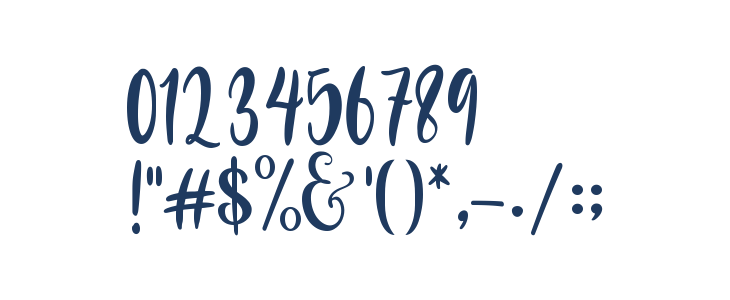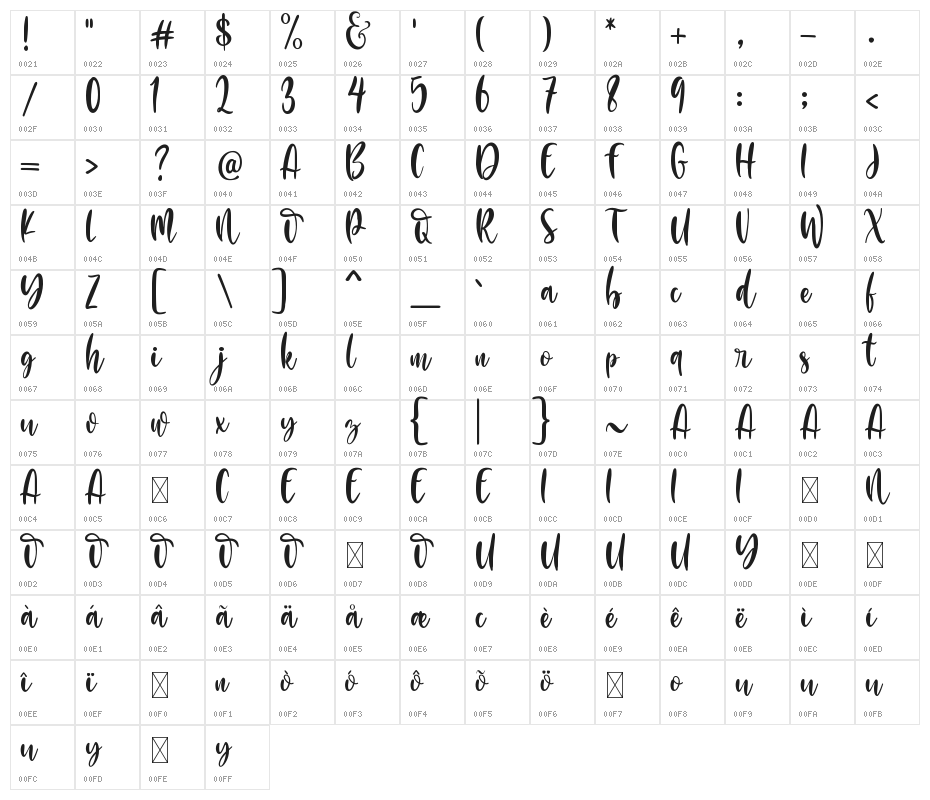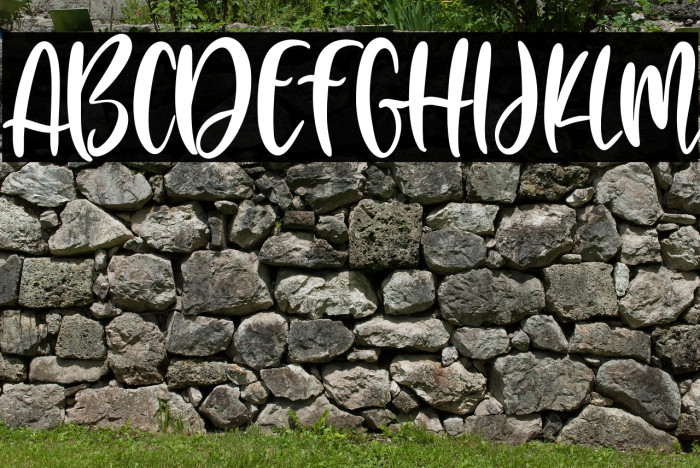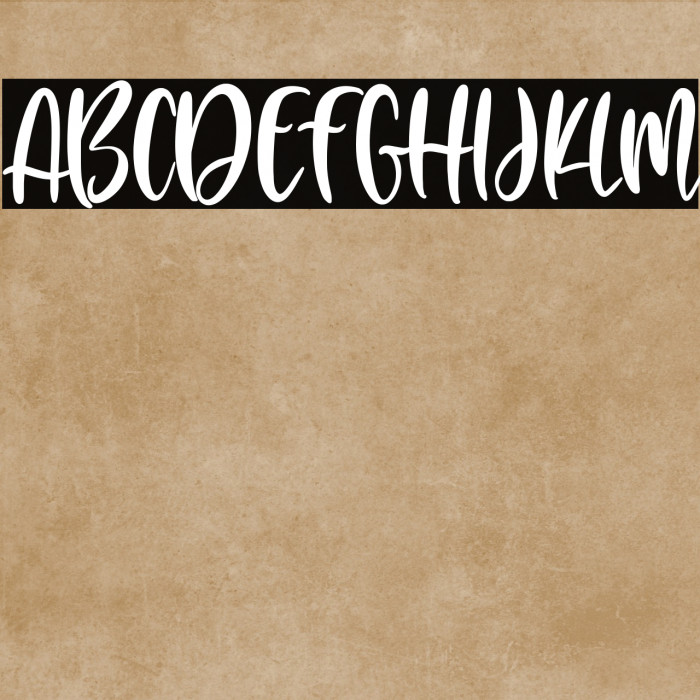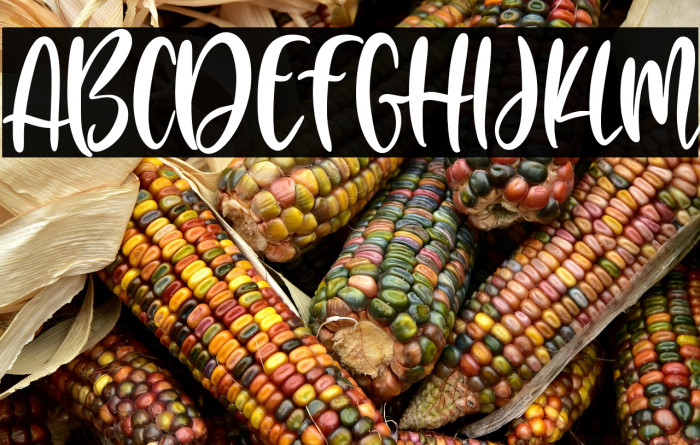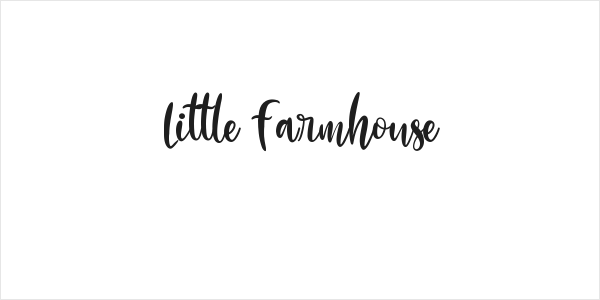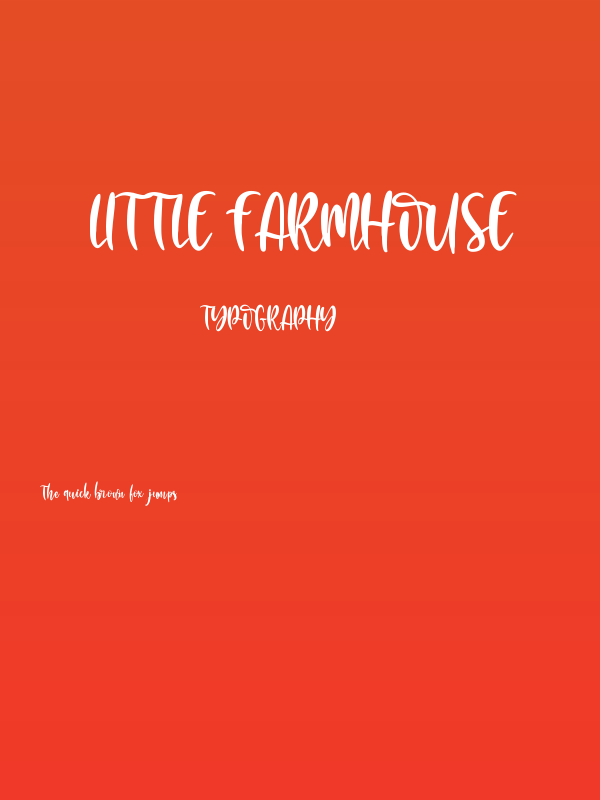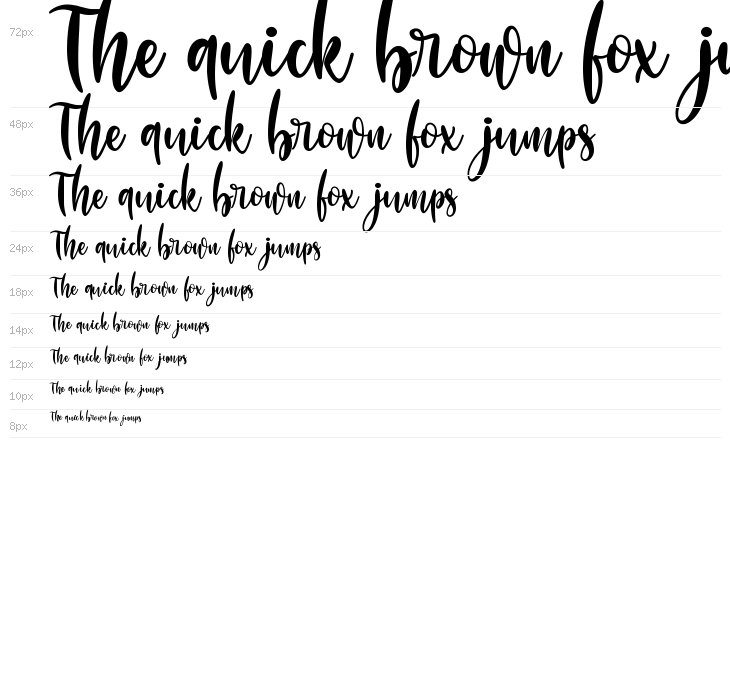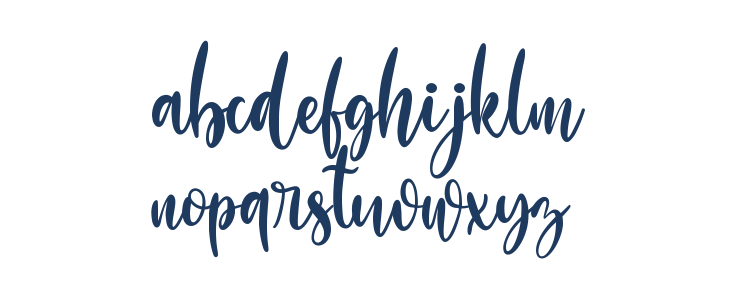
Little Farmhouse Font
Little Farmhouse Description
This font exudes a lively and playful handwritten style, characterized by its bold, flowing strokes and whimsical curves. The letters are crafted with a sense of movement and personality, making it ideal for designs that require a touch of creativity and warmth. The uppercase and lowercase letters maintain a consistent style, with the uppercase letters being slightly more pronounced. Numbers and special characters are designed to complement the alphabet, ensuring a cohesive look across all text elements. The font's overall appearance is both charming and approachable, making it suitable for a variety of creative projects.